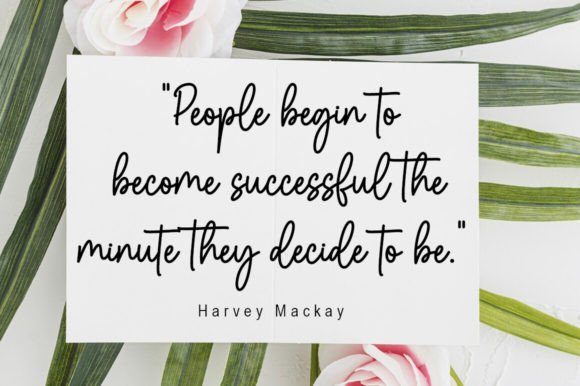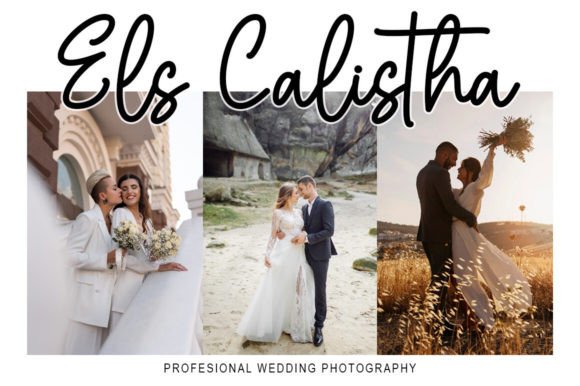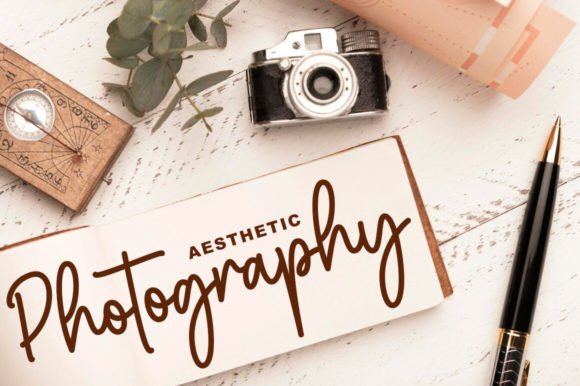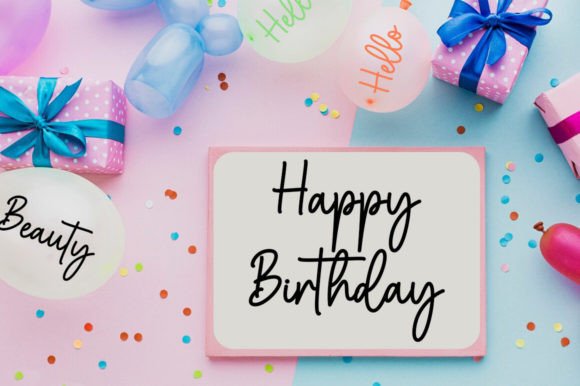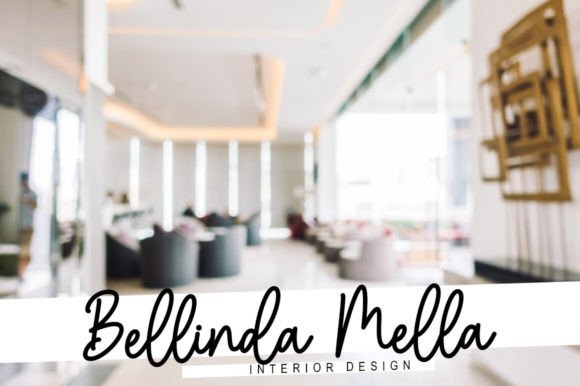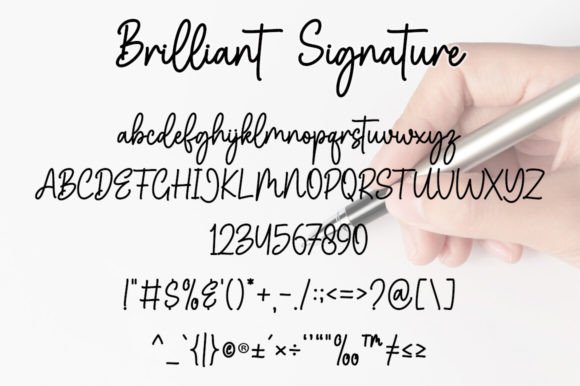
When Words Speak Volumes
Have you ever stumbled upon a font that just speaks to you? Maybe it was the perfect font for a personal project, or it reminded you of a happy memory. For me, it was the moment I discovered the Brilliant Signature Font. I was working on a wedding invitation design, and I wanted to add a personal touch that would make the couple’s special day even more unforgettable.
That’s when I came across Brilliant Signature Font – a sweet and friendly handwritten font that exudes warmth and friendliness. Designed to add a fun touch to any design, this font is perfect for writing wedding invitations, cards, and other special occasions. What makes it truly valuable for designers is its versatility and ability to add a personal touch to any project.
Brilliant Signature Font Key Features
- Unique Characteristics: Elegant script, beautiful connections between letters, and a touch of sophistication
Brilliant Signature Font Review
I recently had the chance to work with the Brilliant Signature Font, and I wanted to share my honest thoughts on it.
What works well: ✨ The font is incredibly versatile, with a wide range of styles and weights to choose from. I love how it can go from elegant and sophisticated to bold and eye-catching.
✨ The font is also highly customizable, with options to adjust the spacing, alignment, and even the font’s color. This made it a breeze to integrate into our design projects.
✨ The font’s ligatures and kerning are also top-notch, making it a joy to read and work with.
- ⚠️ The font can be a bit too ornate for some projects, which may make it difficult to read at smaller font sizes.
- ⚠️ Some of the font’s styles can feel a bit inconsistent, which may make it challenging to achieve a cohesive look.
Overall, I’m really impressed with the Brilliant Signature Font. While it may have some limitations, its versatility, customizability, and high-quality design make it a great addition to any designer’s toolkit. I’d definitely recommend it for projects that require a touch of elegance and sophistication.
Use the Brilliant Signature Font to create eye-catching business cards, letterheads, and social media graphics.
Experiment with different font sizes and colors to create a unique visual identity.
Combine the font with other design elements, such as images and graphics, to create a cohesive look.